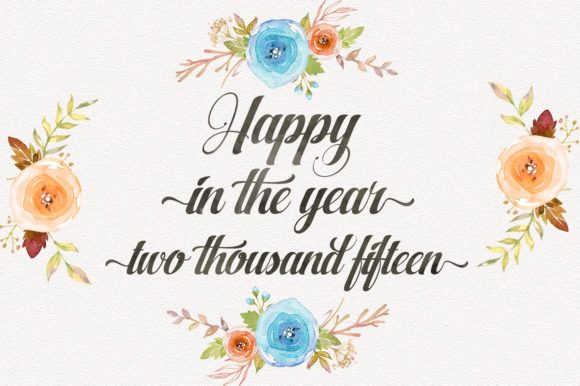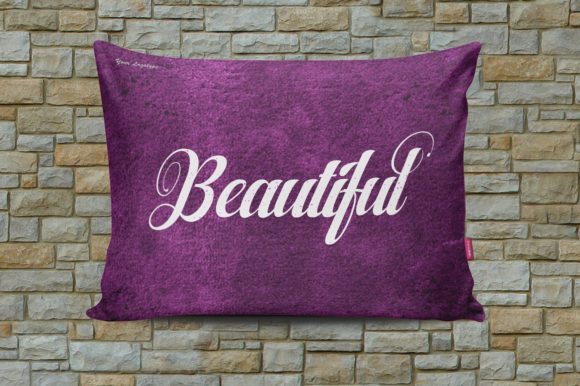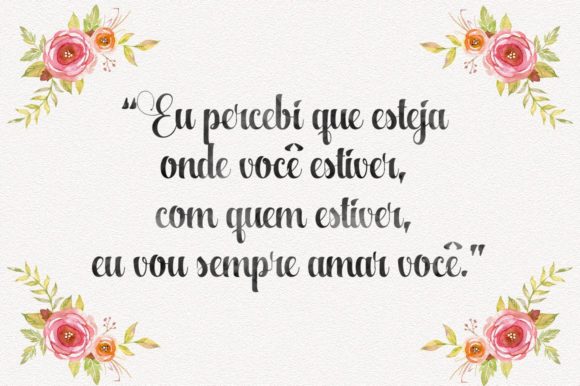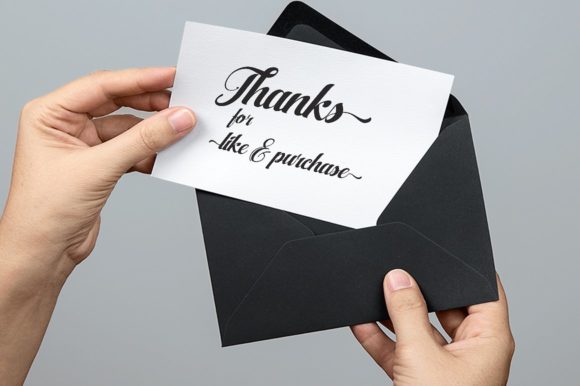
Have you ever stared at a blank page, trying to come up with the perfect font to match your creative vision? We’ve all been there. But what if we told you that the perfect font is just a click away? Aqualita Font is a charming handwritten font that’s sure to bring your designs to life.
With its casual charm and versatility, Aqualita Font is the perfect addition to any design project. Whether you’re creating a busy advertisement or a simple social media post, Aqualita Font is sure to make your content stand out. Its readability and down-to-earth feel make it a valuable asset for designers looking to create engaging and effective designs.
So why settle for a generic font when you can have a font that truly makes a statement? Aqualita Font is the perfect choice for designers looking to add a touch of personality to their work.
Aqualita Font Key Features
- Unique Characteristics: Aqualita Font features a unique blend of modern and vintage elements, with flowing lines and organic shapes, making it perfect for creative and artistic designs.
Aqualita Font Review
Overall, I found Aqualita Font to be a visually appealing choice for water-themed projects. ✨ It has a friendly, approachable feel that could work well for designs involving swimming pools, waterfalls, or marine life.
The font’s unique, flowing script-like style adds a touch of elegance to any project. ✨ The varied letterforms and subtle flourishes create a sense of movement and dynamism that’s perfect for conveying a sense of fluidity.
Some potential drawbacks to consider: ⚠️ Aqualita Font may not be the best choice for projects requiring a more formal or serious tone, as its playful feel may detract from the overall message.
Additionally, ⚠️ the font’s complexity may lead to difficulties in pairing it with other fonts or designing layouts that require precise spacing.
Here are some key features to keep in mind:
- Script-like style with flowing connections between letters
- Varied letterforms and subtle flourishes for added visual interest
- Best suited for water-themed projects or designs requiring a playful tone
- May not be ideal for formal or serious projects
Tips for Getting the Most Out of Aqualita Font
For the best results, pair Aqualita Font with bold, clean lines and simple backgrounds. Avoid using it for body text, as it’s best suited for headings and titles. Experiment with different font sizes and colors to create visual interest.
Aqualita Font is ideal for creating modern, minimalist designs. Use it for:
- Brand identities and logos
- Marketing materials and advertisements
- Website headers and footers
- Infographics and data visualizations
Alternatives to Aqualita Font for Designers
Oswald Font is a sans-serif font that is perfect for creating modern and clean designs. It’s ideal for use in headings, titles, and short paragraphs where clarity is key. Oswald is similar to Aqualita in its clean and minimalist aesthetic, but it has a more geometric feel and is better suited for digital applications.
Montserrat Font is a sans-serif font that originated in Buenos Aires, Argentina. It’s ideal for use in urban and modern designs where a strong, industrial feel is desired. Montserrat is similar to Aqualita in its clean and modern aesthetic, but it has a more rugged and textured feel, making it better suited for use in print and digital applications where a bold statement is needed.
Inter Font is a sans-serif font that is designed for use in digital applications. It’s ideal for use in long blocks of text, such as articles and essays, where a clean and readable font is desired. Inter is similar to Aqualita in its clean and modern aesthetic, but it has a more neutral feel and is better suited for use in digital applications where a subtle statement is needed.